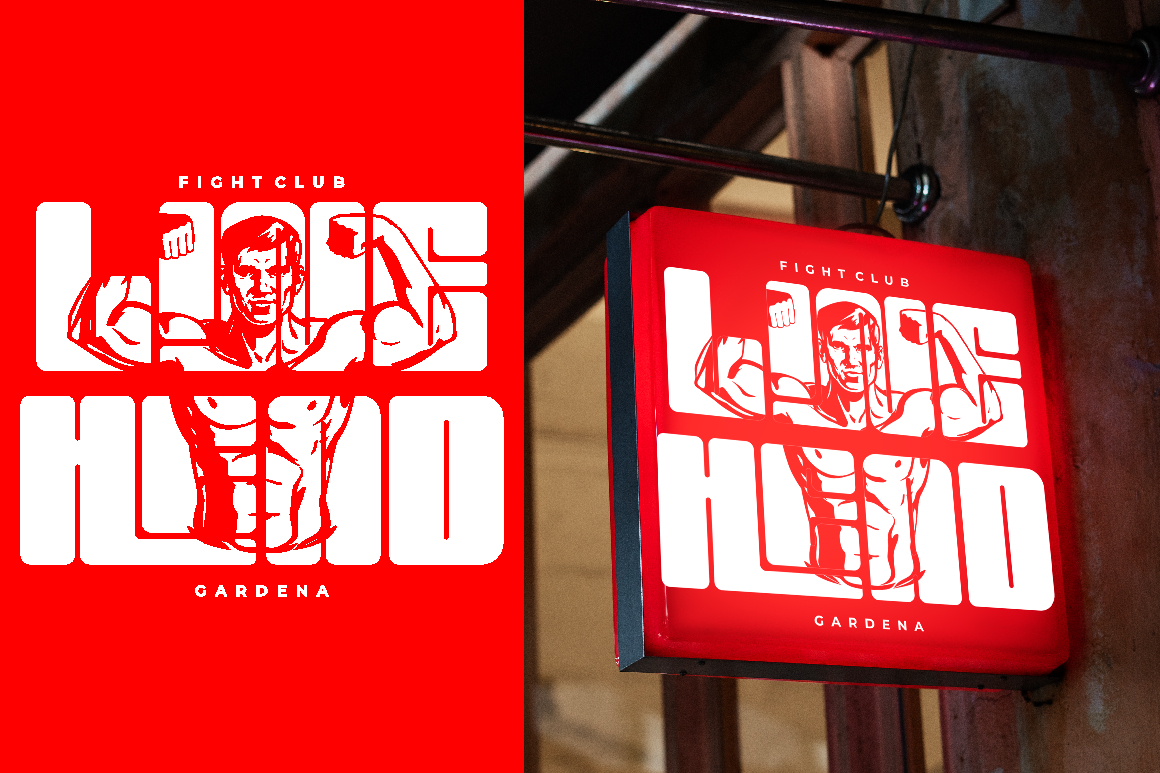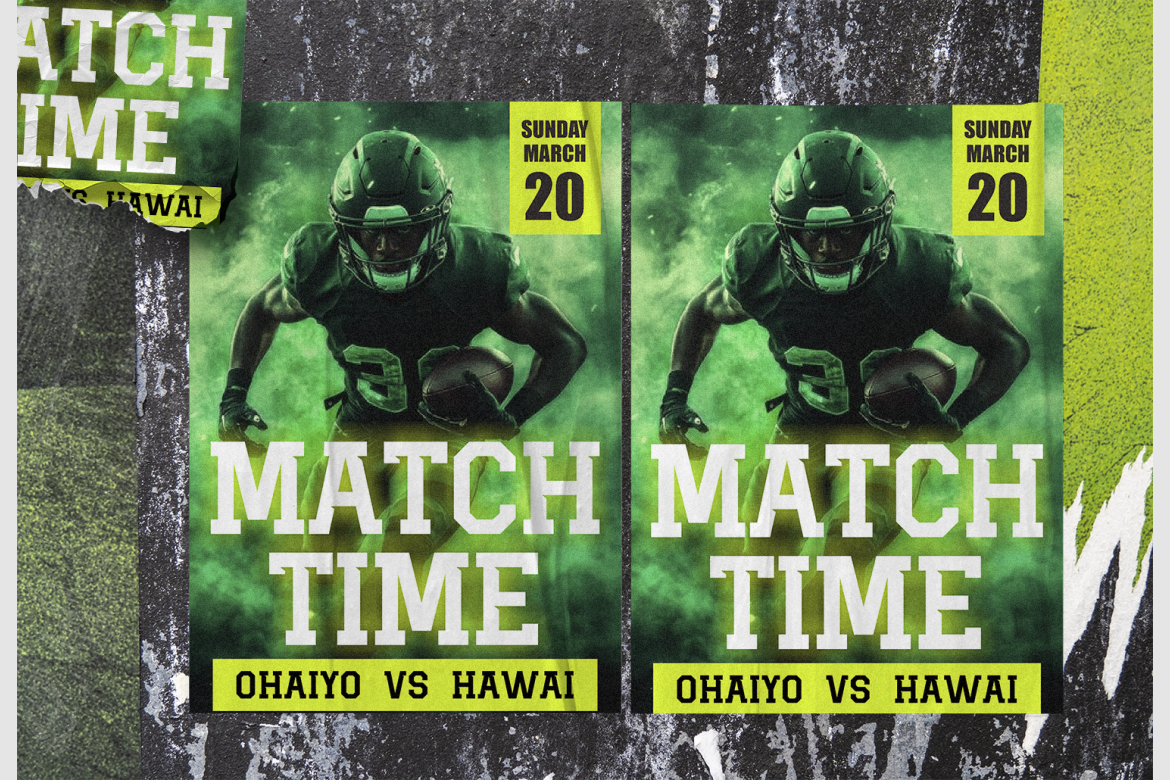
Best Sports Fonts: Top 10 Athletic Typefaces to Energize Your Designs
In the dynamic world of sports branding, every visual element matters. From jerseys and event posters to logos and digital graphics, the right typeface can make your design stand out and energize the audience. Sports fonts are not just bold and powerful—they’re built to communicate strength, motion, and competitive spirit.
In this article, we’ll explore 10 of the best sports-themed fonts you can use in your projects. Whether you’re designing for a racing event, a fitness campaign, or a team identity, these fonts from PutraCetol Studio will equip your designs with high-impact style.
1. Grind Sport
This font screams aggression and energy. Grind Sport features heavy, sharp strokes ideal for sports teams, gym branding, and event banners. It combines boldness with a contemporary edge that ensures visibility at any scale.
2. Vintage Victory
Blending nostalgia with athleticism, Vintage Victory brings a retro sports vibe reminiscent of varsity letters and championship gear. It’s perfect for vintage posters, sportswear, and baseball-themed graphics.
3. Fullback Force
Designed for impact, Fullback Force is made for high-stakes environments like Superbowl-style promotions, sports headlines, and promotional campaigns. The aggressive letterforms express raw power.
4. Prime Play
This clean and structured font is ideal for modern sports branding. Prime Play works well for logos, social media graphics, and product packaging that demand readability and bold character.
5. Rapido Racers
If speed and movement are what you’re aiming to convey, Rapido Racers is a must. This quirky, display font evokes motion, perfect for motorsports branding, car racing posters, and speed-related merchandise.
6. Beady Ready
Bold, compact, and intense, Beady Ready is crafted for sportswear, logos, and headline typography. Its all-caps style and sharp edges make it suitable for competitive environments.
7. Rock Road
This racing font delivers raw energy and a gritty vibe, ideal for off-road events, extreme sports, and rugged branding projects. The slightly distressed design adds personality and impact.
8. Eurolite
Clean, wide, and modern—Eurolite is perfect for creating sleek sport brand logos. It’s particularly useful for minimalistic identity design, branding campaigns, and tech-oriented sports products.
9. Armor
Armor is a heavy-duty, futuristic typeface that fits perfectly into e-sports and high-impact branding. It gives your typography a shielded, indestructible feel, fitting for digital and print design.
10. Movetrax Booster
Sleek and stylish, Movetrax Booster excels in race-inspired themes. With italicized shapes and racing energy, it’s great for track and field events, F1 posters, or any sport involving motion.
Why Choose Sports Fonts?
Sports fonts are specifically crafted to reflect action, tension, and emotion. Their shapes are often bold, angular, and dynamic to ensure they command attention on merchandise, screens, or print media.
Benefits of Using Sports Fonts:
• Immediate visual impact
• Increased readability in competitive environments
• Enhanced brand recognition
• Thematic alignment with athletic or high-energy campaigns
Tips for Using Sports Fonts Effectively:
• Use them for headlines and short text only
• Pair with clean, sans-serif body fonts
• Match the font style to the sport (rugged for football, speedy for racing)
• Maintain contrast with background colors
Final Thoughts
When chosen wisely, the right sports font can elevate your design from average to unforgettable. Each font in this list offers a unique way to express athletic identity and movement, whether you’re building a brand or designing an event poster.